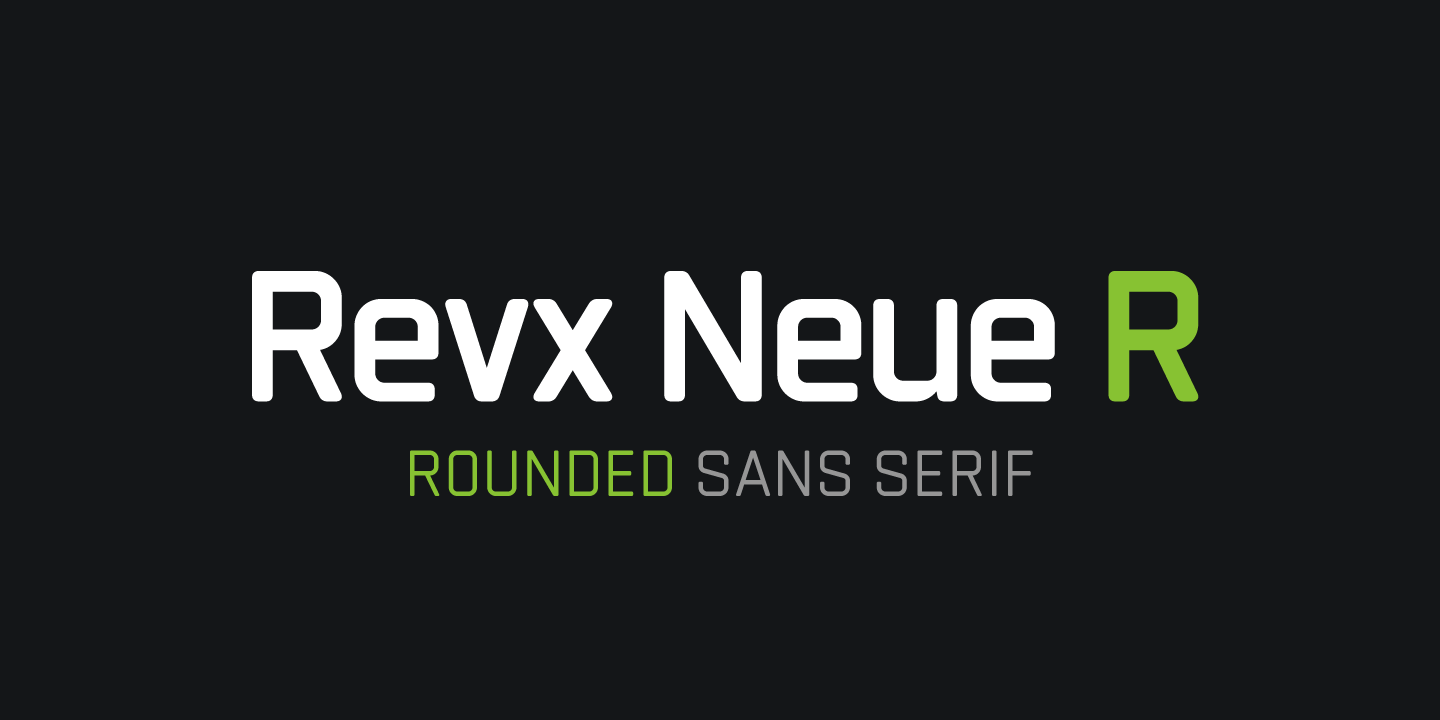
Revx Neue Rounded Font is perfect for modern app interfaces, friendly brand identities, children's educational materials, playful web designs, casual restaurant branding, and approachable tech company communications. Its rounded character makes it ideal for family-oriented businesses, healthcare institutions, creative agencies, startup companies, and any application requiring soft, welcoming typography that conveys accessibility, warmth, and contemporary friendliness.
Revx Neue Rounded Font is exciting because it masterfully combines cutting-edge geometric precision with gentle, humanizing curves that create an instantly approachable aesthetic. Its perfectly balanced rounded corners soften the rigidity of traditional sans-serif designs while maintaining exceptional clarity and professional quality, making it ideal for brands seeking to appear both modern and approachable. The font's innovative design bridges the gap between technical precision and human warmth.
Revx Neue Rounded Font family includes contemporary weight variations typically featuring Thin, Light, Regular, Medium, Semibold, Bold, and Black options with matching rounded italic styles. The family often incorporates harmonious character spacing, optimized screen rendering, and extended language support designed for global digital applications, providing designers with comprehensive tools for creating cohesive, friendly typographic systems.